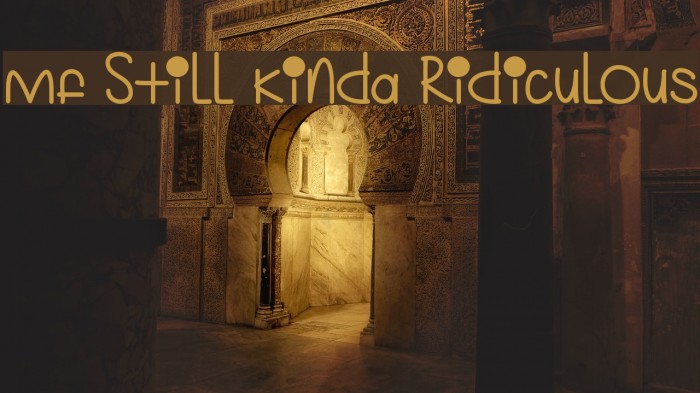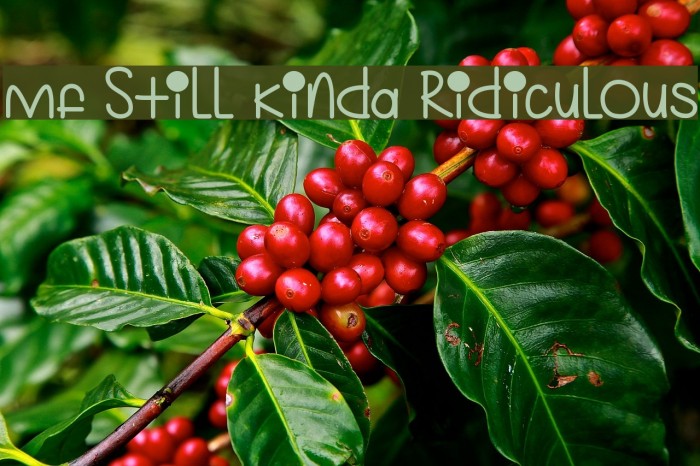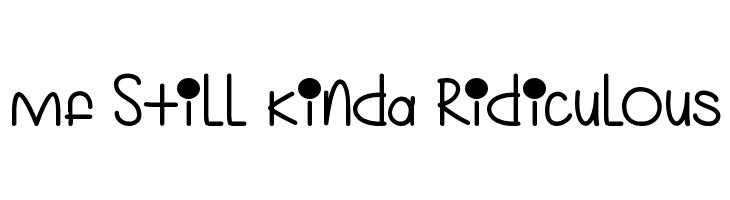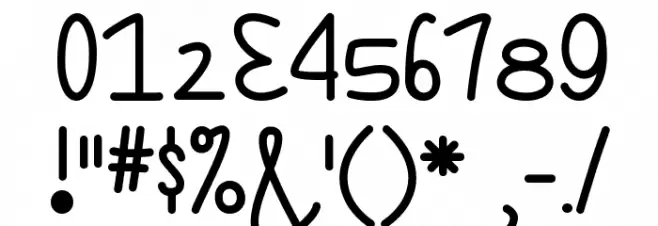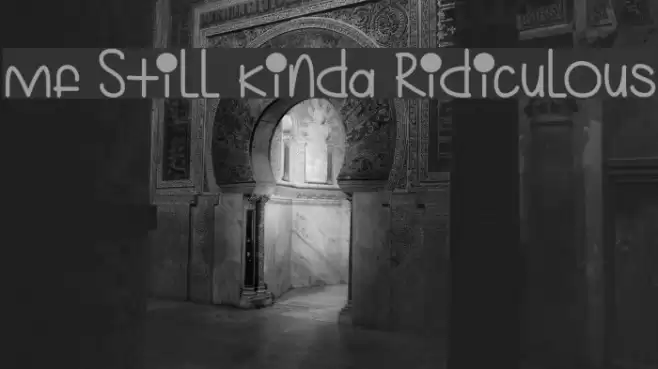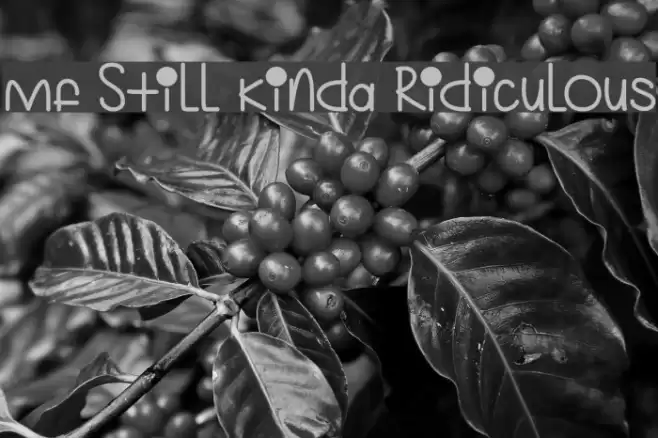
Mf Still Kinda Ridiculous Font
This playful and whimsical font features a handwritten style with a casual, friendly appearance. The letters are characterized by their rounded, smooth curves and varying stroke widths, giving them a lively and dynamic feel. The uppercase letters are bold and slightly irregular, while the lowercase letters maintain a consistent, flowing style. The numerals and special characters follow the same playful design, adding to the font's overall charm. This font is perfect for projects that require a fun and informal touch, such as children's books, greeting cards, or playful branding materials.
A playful, handwritten font with rounded curves and a whimsical style.
- Proposed Projects: Ideal for children's books, greeting cards, playful branding, and informal invitations.
- Overall Style: Whimsical
- Use Case: Headlines, Logos, Informal text